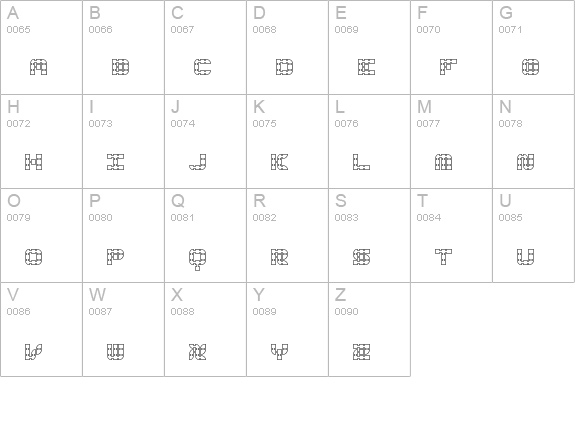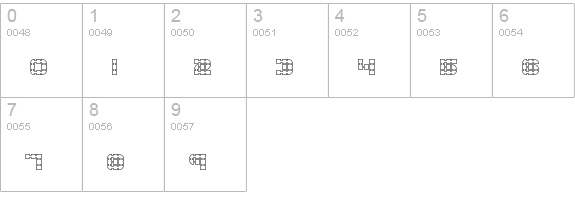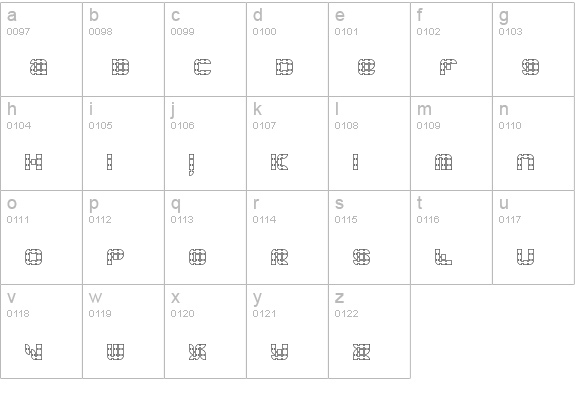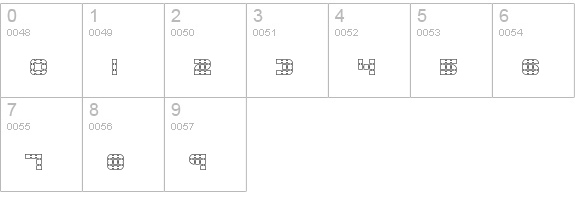
Konector O2 -BRK- font is a modern and stylish typeface that exudes a sense of energy and dynamism. Its unique design features sharp angles and bold strokes that give it a distinct edge. This font is perfect for creating eye-catching headlines, posters, and branding materials. What sets Konector O2 -BRK- font apart is that it is available for free download at FontsMarket.com. This means that you can easily access this fantastic font and incorporate it into your design projects without any cost. Whether you're a professional designer or a casual creator, Konector O2 -BRK- font is a versatile and high-quality option that will elevate your work to the next level. Don't miss out on this opportunity to add a touch of modern sophistication to your designs with Konector O2 -BRK- font.